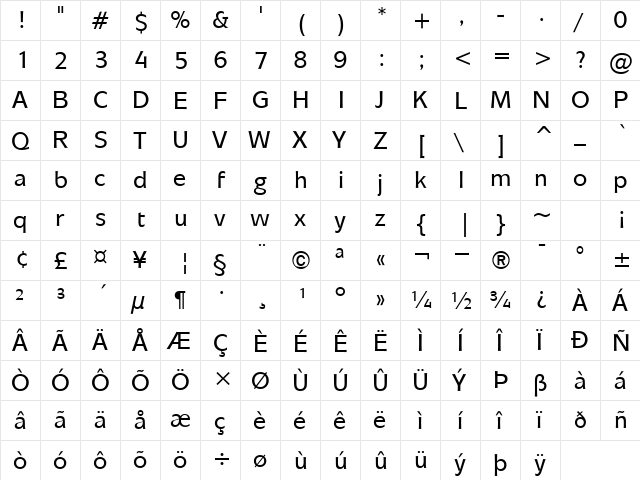
ITCMixage-Medium Medium Font Preview
ITCMixage-Medium Medium
ITCMixage-Medium Medium Font Details
Design Context for ITCMixage-Medium Typeface
ITCMixage-Medium offers clean, dependable letterforms without strong stylistic allegiance, making it a practical choice for designers who need flexibility.